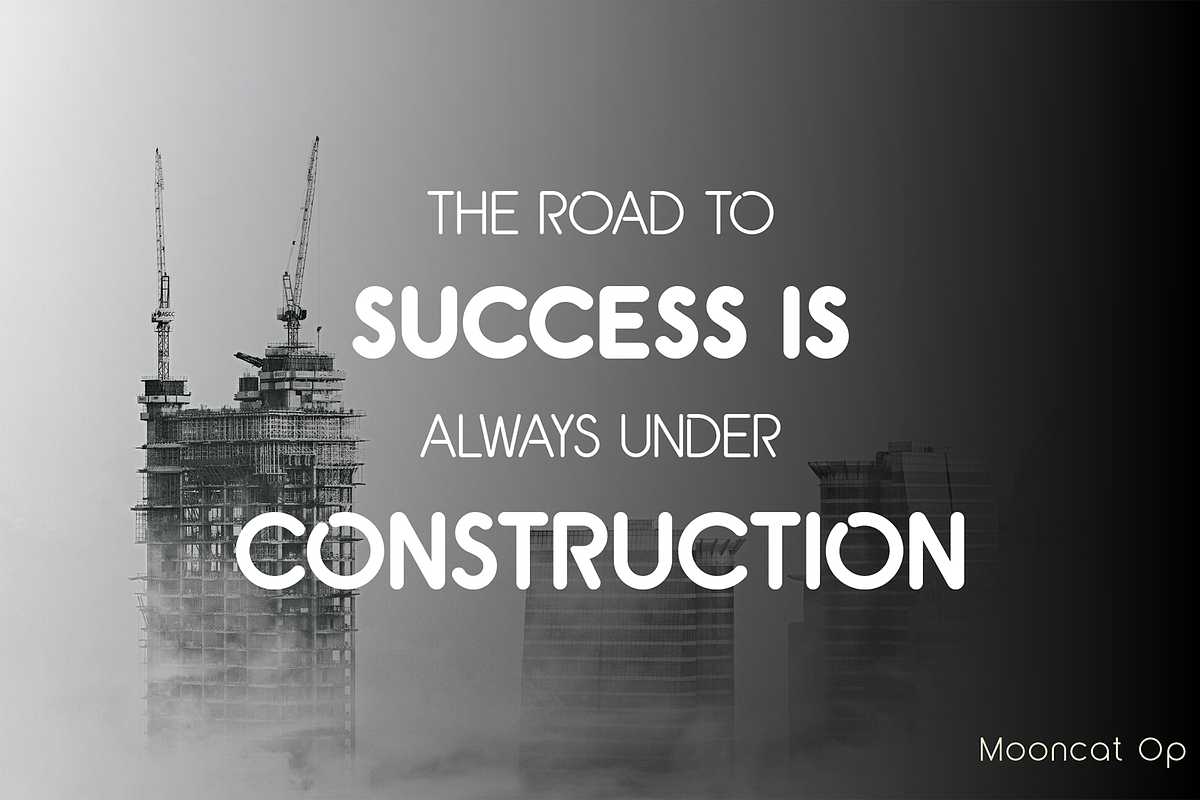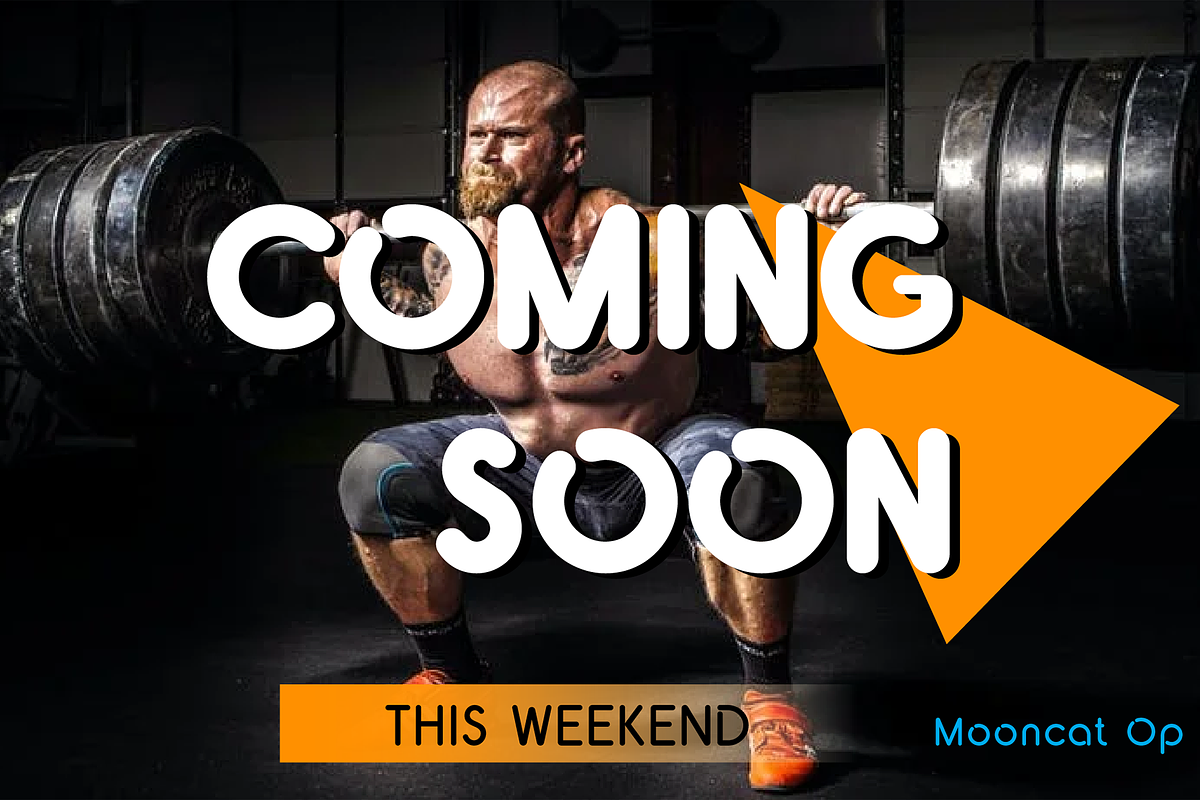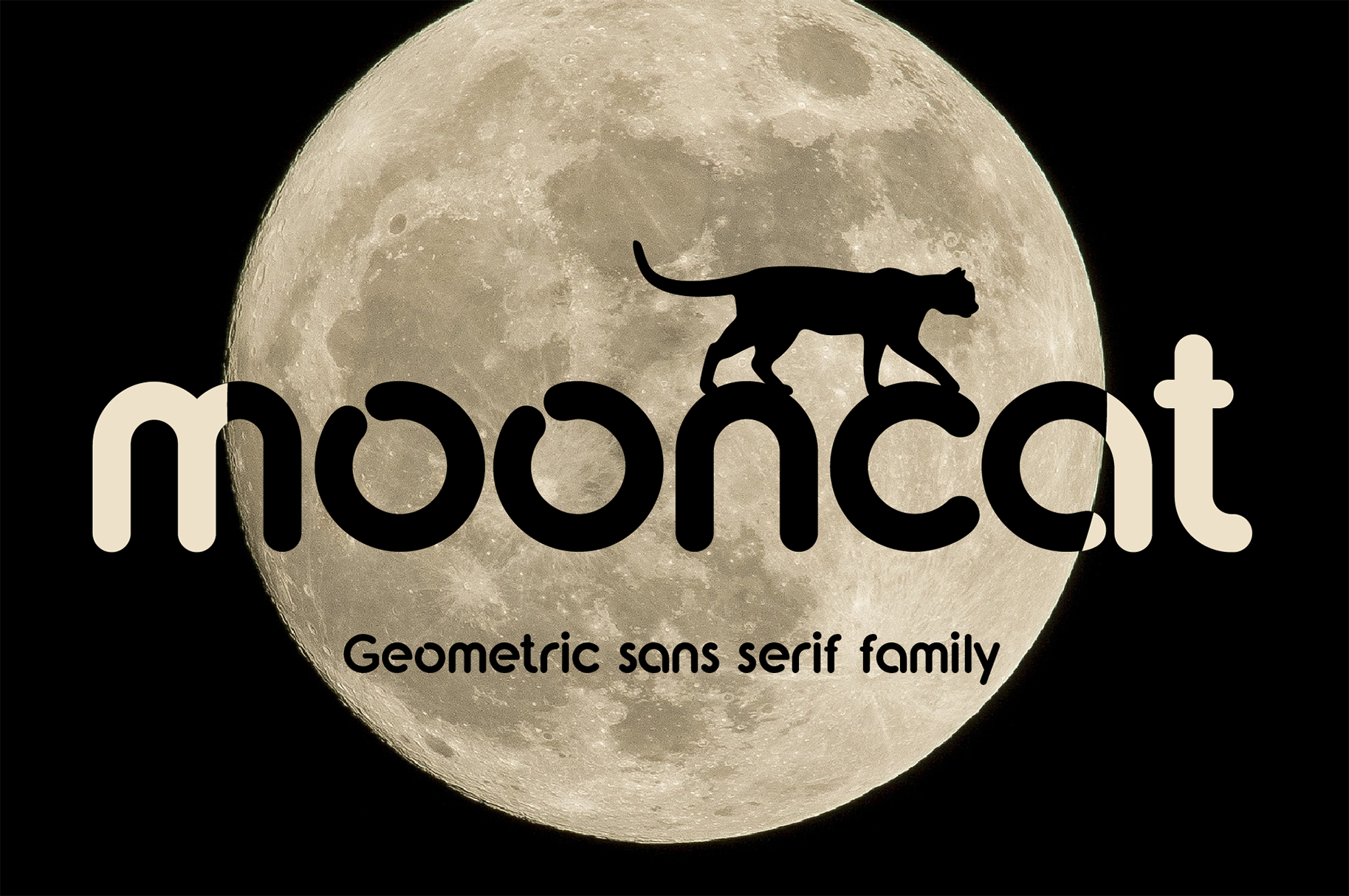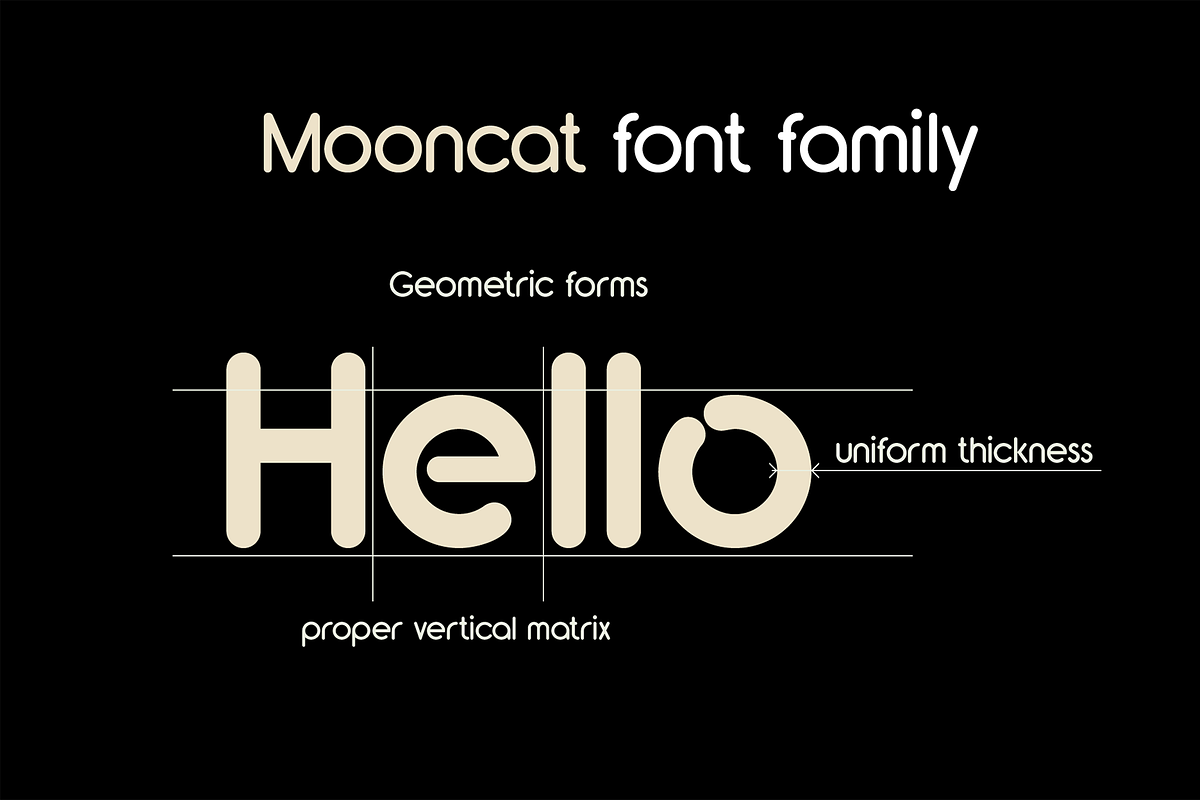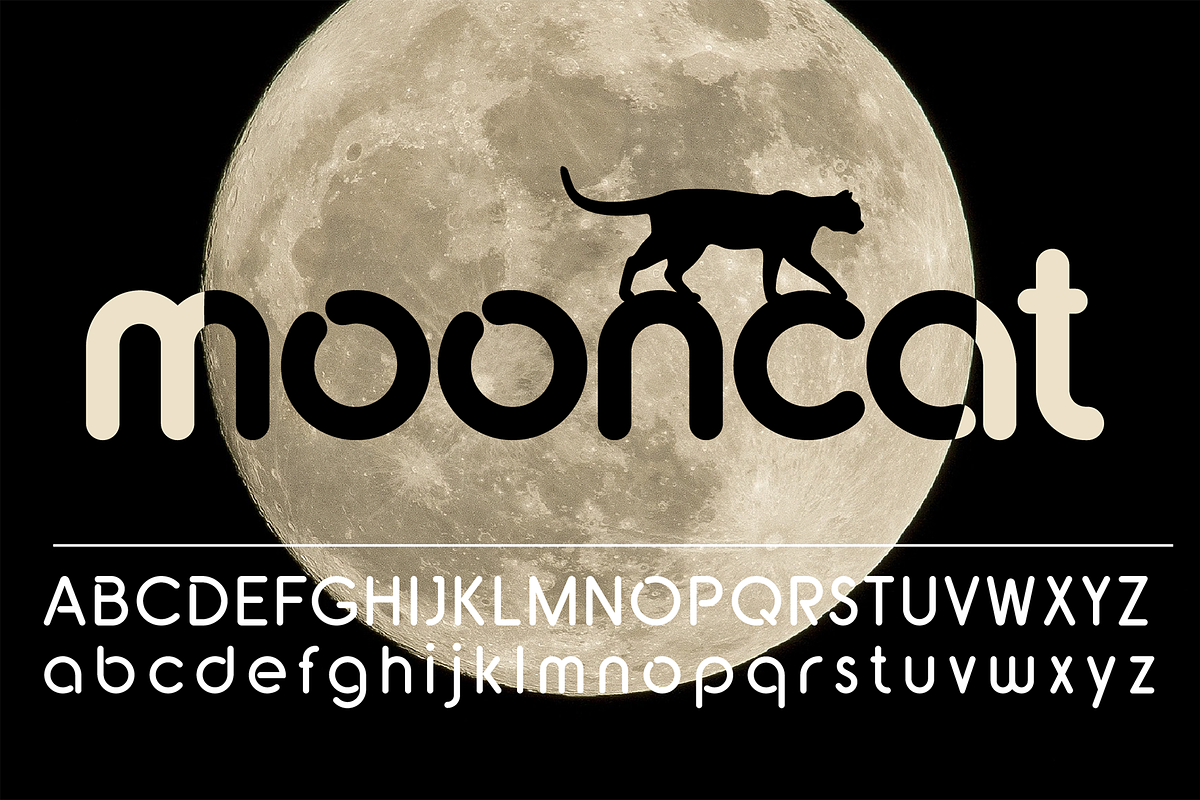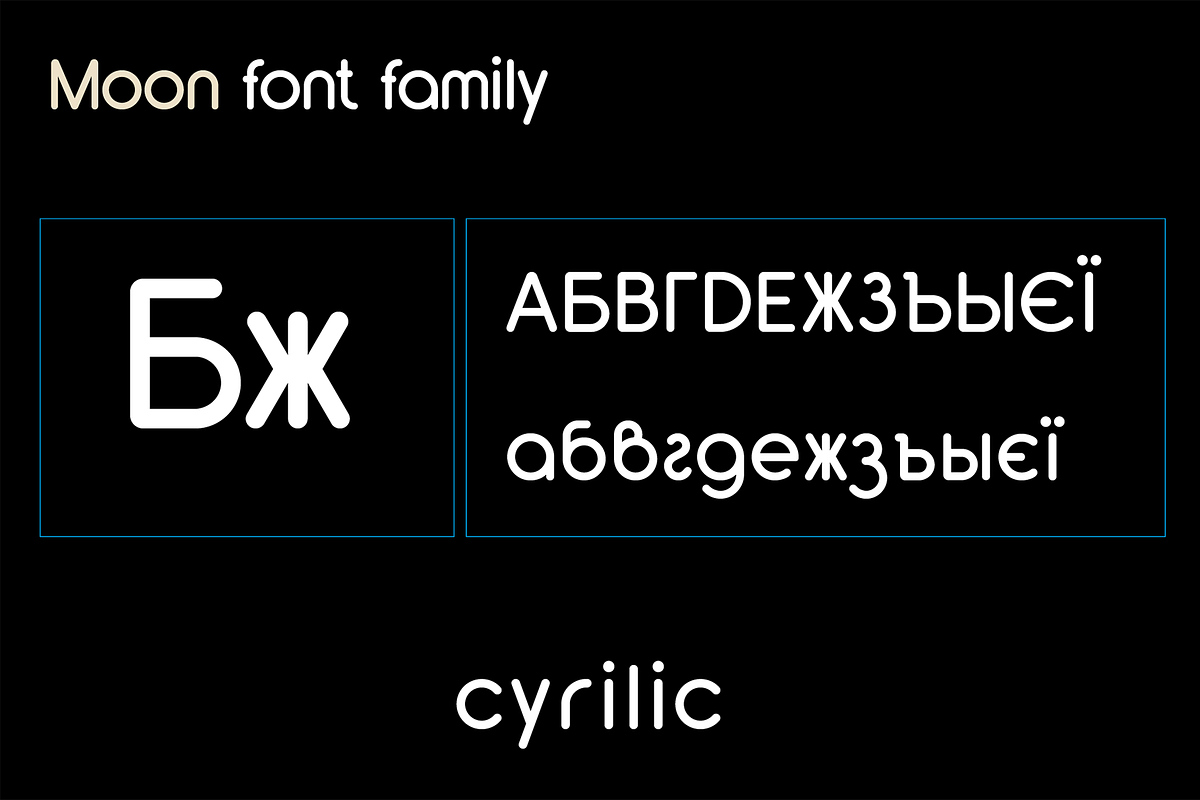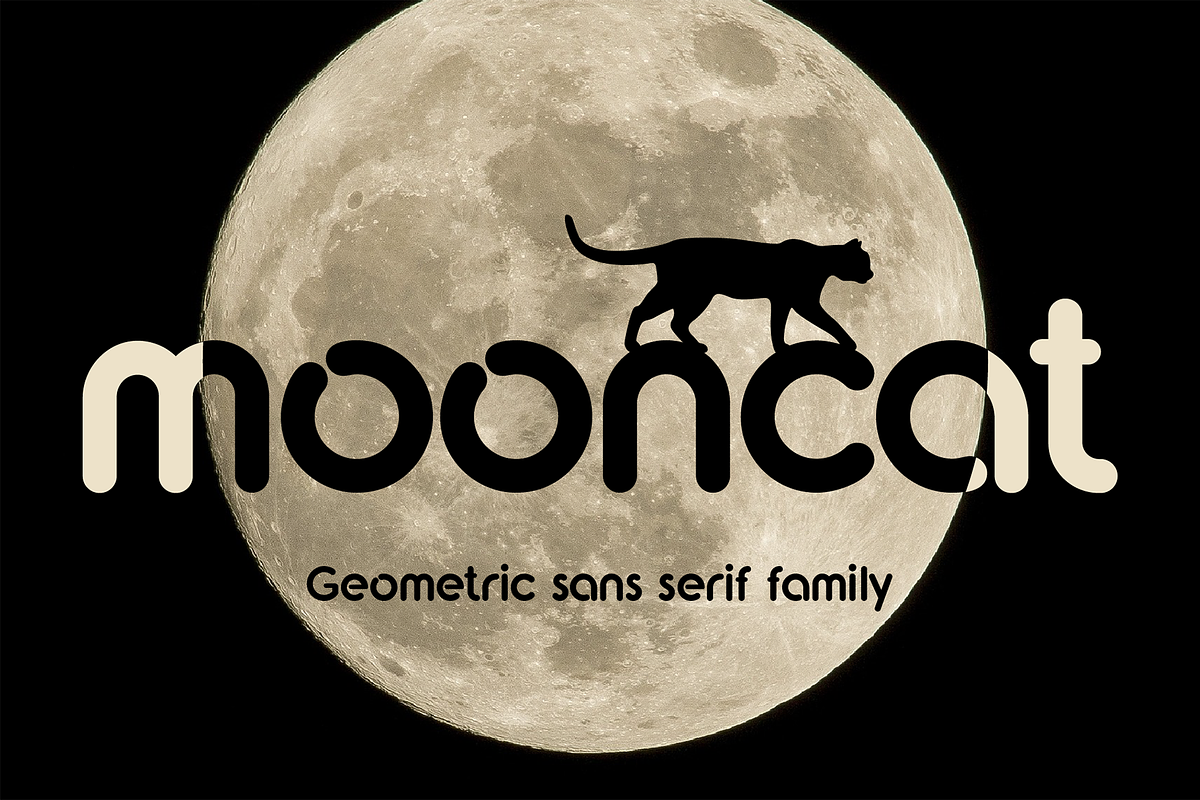
Mooncat font family
Mooncat is a modern sans serif geometric font, includes upper and lower case characters, Latin, Cyrillic, Latin Eastern Europe, Turkish, Baltic and other. Mooncat family consists of 4 fonts (4 types of thickness). Mooncat fonts will be useful in developing a brand, creating posters and other graphic products, and for word processing.